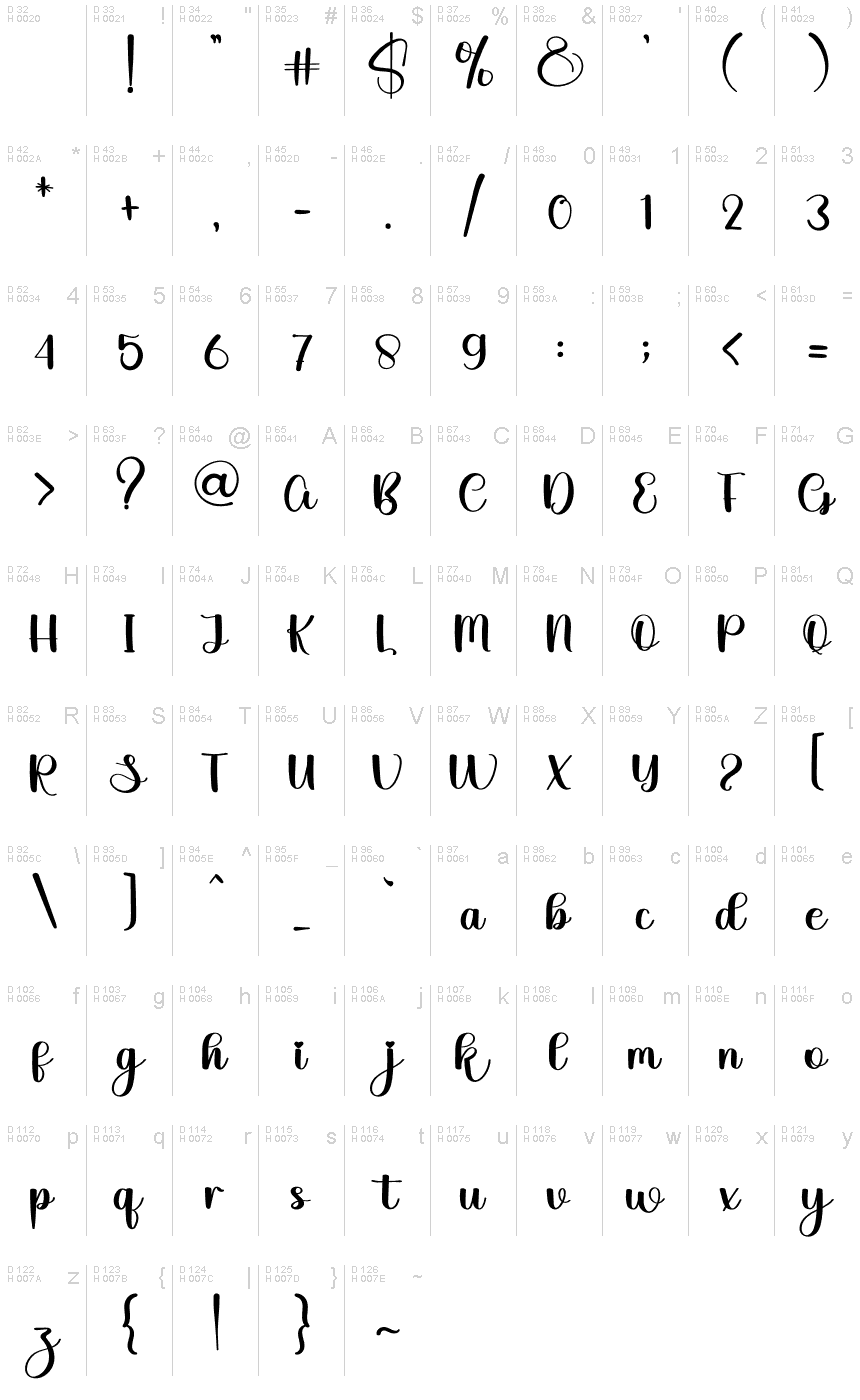
Blank
Blank, a charming handwritten font by FreshtypeINK, adds a touch of whimsy to any project. With its flowing strokes and playful curves, this font exudes creativity and imagination.
Its versatility makes it suitable for a wide range of projects, such as children's books, greeting cards, and invitations. Whether you want to infuse your designs with an air of nostalgia or convey a sense of joyfulness, Blank is the perfect choice. Let this delightful font breathe life into your next venture and captivate your audience with its unique charm.